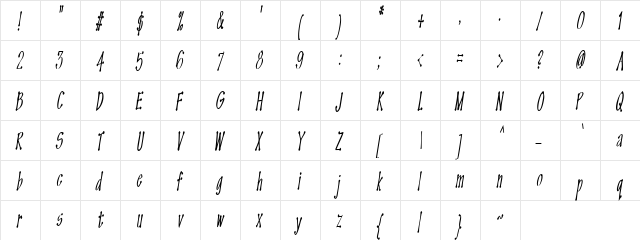
OMEGA Old Face Regular
Design Context for OMEGA Old Face Typeface
OMEGA Old Face takes a measured approach to typography — its balanced proportions and neutral character make it a reliable workhorse for both digital and print work.